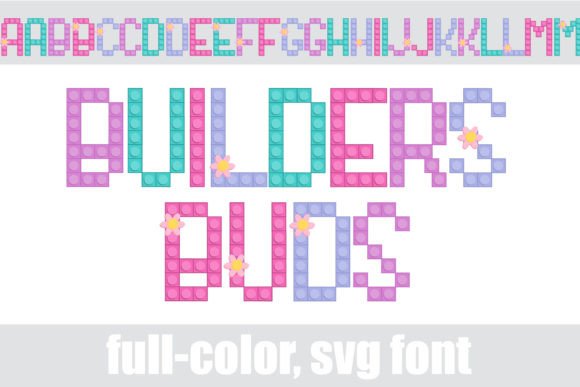
The Joy of Builders Buds Font: A Designer’s Delight
I still remember the day I stumbled upon the perfect font for my design project. I was working on a colorful brochure for a local nursery, and I needed a font that would capture the playful, vibrant spirit of the brand. That’s when I discovered Builders Buds Font, and it instantly became my go-to choice. In this article, I’ll share my experience with this amazing font, its features, and how to make the most of it in your designs.
An Honest Review of Builders Buds Font
- ✅ The unique, spring-like color palette on building blocks with occasional buds is perfect for designs that require a playful touch.
- ✅ The alt case with additional colors accessible through the system or Silhouette’s glyph map offers endless possibilities for creative experimentation.
While Builders Buds Font is an amazing design tool, there are a few things to keep in mind:
The Story Behind Builders Buds Font
Builders Buds Font was designed with the intention of creating a playful, colorful font that would capture the spirit of spring and new beginnings. The designer aimed to create a font that would be perfect for designs that require a fun, vibrant touch, such as nursery brochures, children’s books, and party invitations.